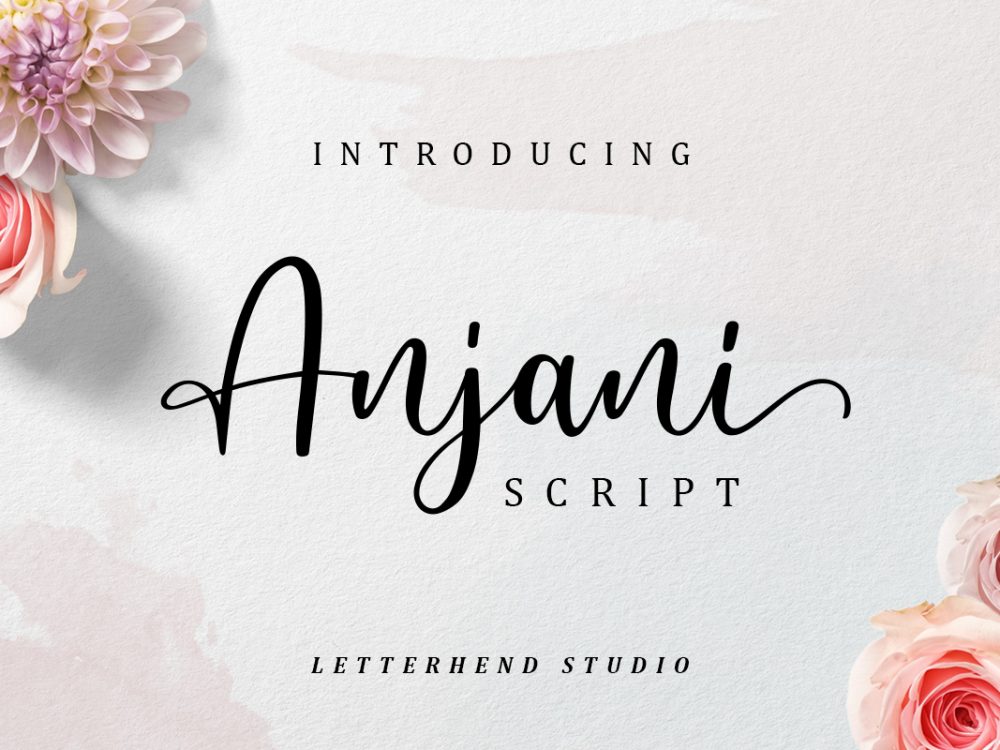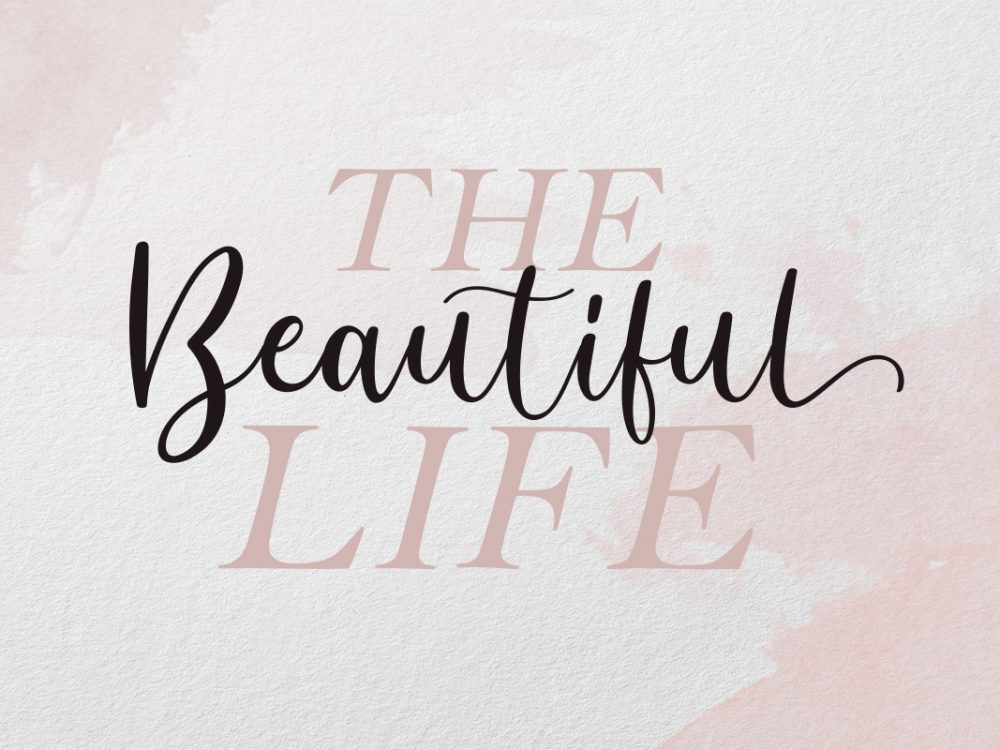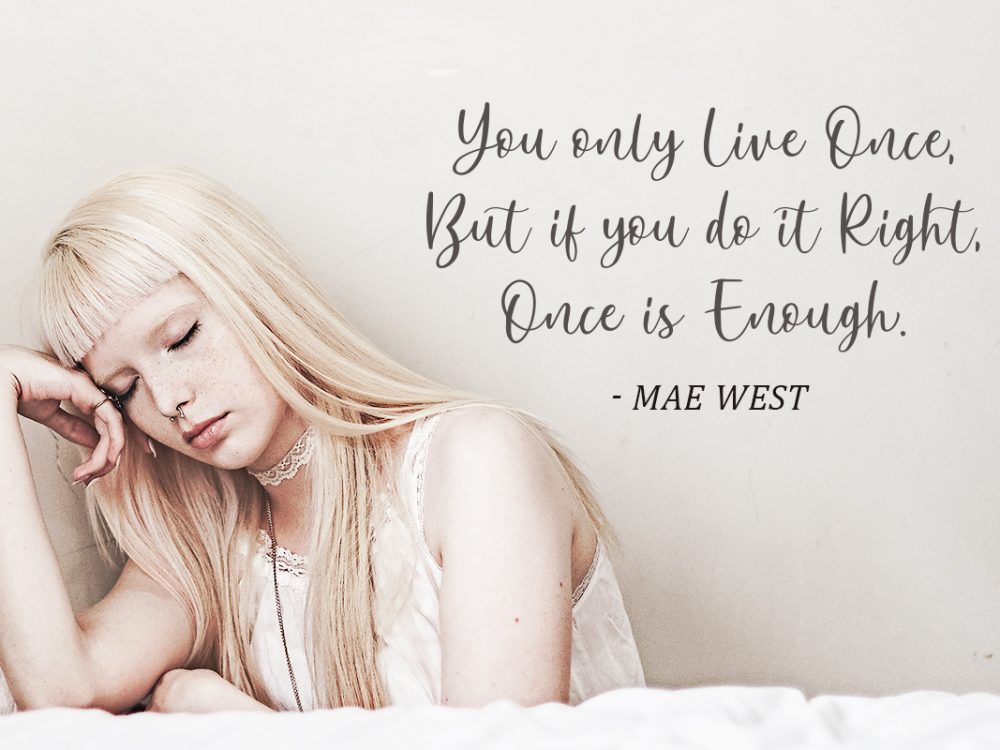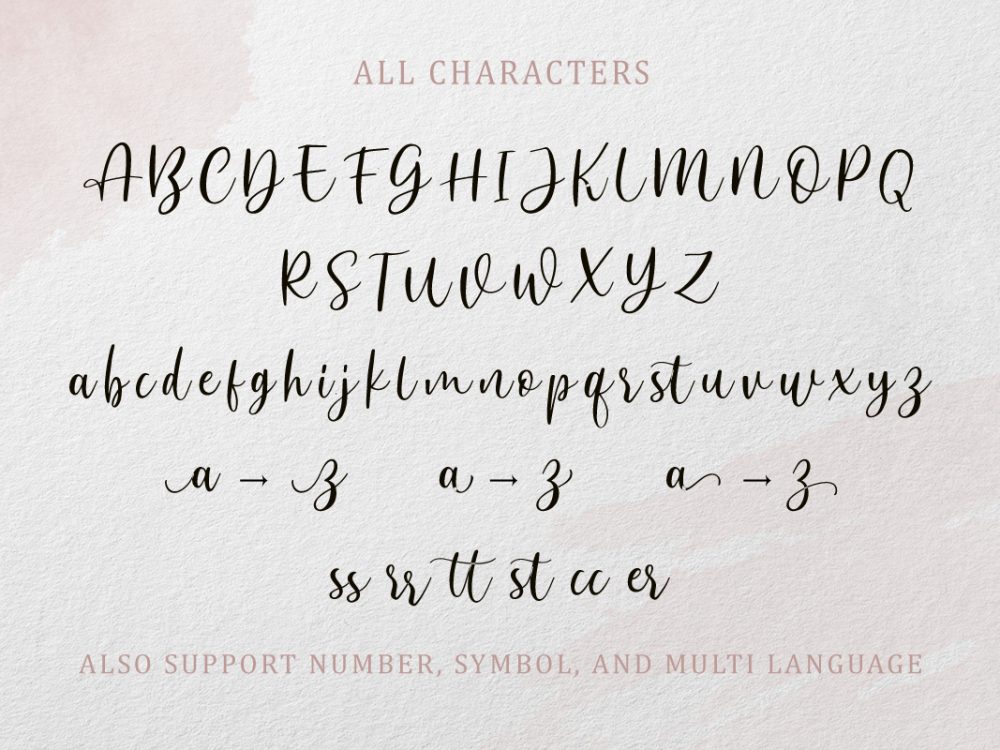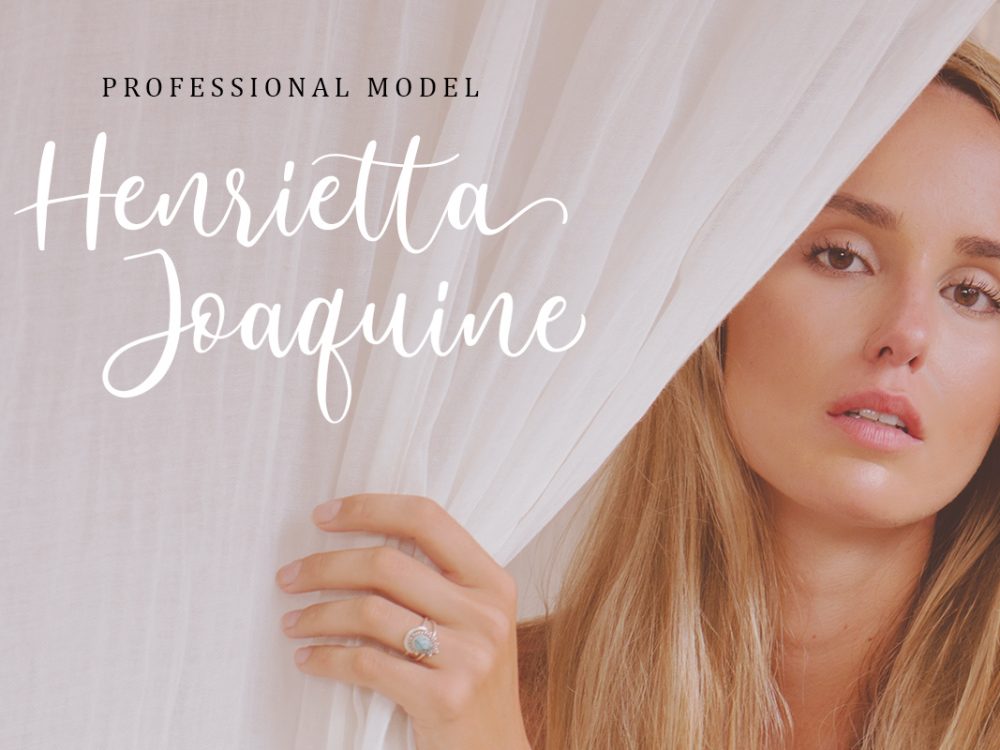
Anjani Free Font
Anjani Free Font is a modern calligraphy script that brings a romantic feel that features an elegant calligraphy script. This typeface comes in uppercase, lowercase, punctuations, symbols & numerals, stylistic set alternate, ligatures, and is very suitable for creating various projects that require a script font. You can use this font to create memorable posters, wedding invitations, greeting cards, branding, flyers, t-shirt and pillow prints, and more. Improve the quality and increase the popularity of your design projects using this font. If you like it don’t forget to check out the full version.